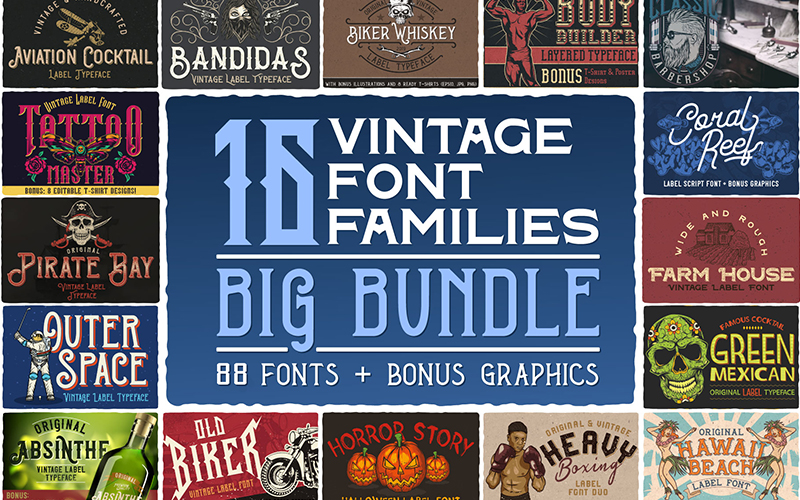
88 Best Retro Fonts Bundle With Over 100 Graphic Elements!
Retro fonts are taking a new avatar and have become the latest trend in the design world. Be it social media, advertisement, branding, printing or website designing, vintage style is surely in vogue!
Today Inky has teamed up with the top designers to bring our most authentic retro-style bundle – The Vintage Fonts Bundle. This is a big bundle with 16 vintage font families (88 different font files) and more than 100 vector graphic elements all for the price of one! These fonts are perfect for a variety of online and print projects so you can design T-shirts, wedding invitations, logos, quotes, signs, posters and many other things.
These vintage fonts will add age and texture to your design works and thus will give them a depth!
The Vintage Fonts Included Are:
Vintage Script Fonts
Vintage Monogram Fonts
Vintage Serif Fonts
Vintage Typeface
Vintage Cursive Fonts
Vintage Sans Serif Fonts
16 Font Families Included In This Vintage Font Bundle:
Aviation Cocktail Font
Bandidas Font
Biker Whiskey Font
Bodybuilder Font
Classic BarberShop Font
Coral Reef Font
FarmHouse Font
Green Mexican Font
Hawaii Beach Font
Heavy Boxing Font
Horror Story Font
Old Biker Font
Original Absinthe Font
Outer Space Font
Pirate Bay Font
Tattoo Master Font
Here’s A Sneak Peek Into The Best Retro Fonts Bundle:
Aviation Cocktail Font
aviation cocktail font - vintage poster font preview
Bandidas Font
bandidas font
Biker Whiskey Font
biker whiskey font vintage poster font preview
Bodybuilder Font
bodybuilder font vintage poster font preview
Classic Barber Shop Font
classic barber shop font
Coral Reef Font
coral reef font
Farm House Font
farm house font vintage poster font preview
Green Mexican Font
Green Mexican Font vintage poster font preview
Hawaii Beach Font
Heavy Boxing Font
Horror Story Font
Old Biker Font
Old Biker Font vintage poster font preview
Original Absinthe Font
Pirate Bay Font
Pirate Bay Font vintage poster font preview
Tattoo Master Font
Highlights For The Vintage Font Bundle:
• 16 Retro Font families with 88 fonts.
• BONUS: 100+ vector graphic elements
• Perfect for a variety of online and print projects – T-shirts, wedding invitations, logos, quotes, signs, posters.
• All fonts have multi-lingual support.